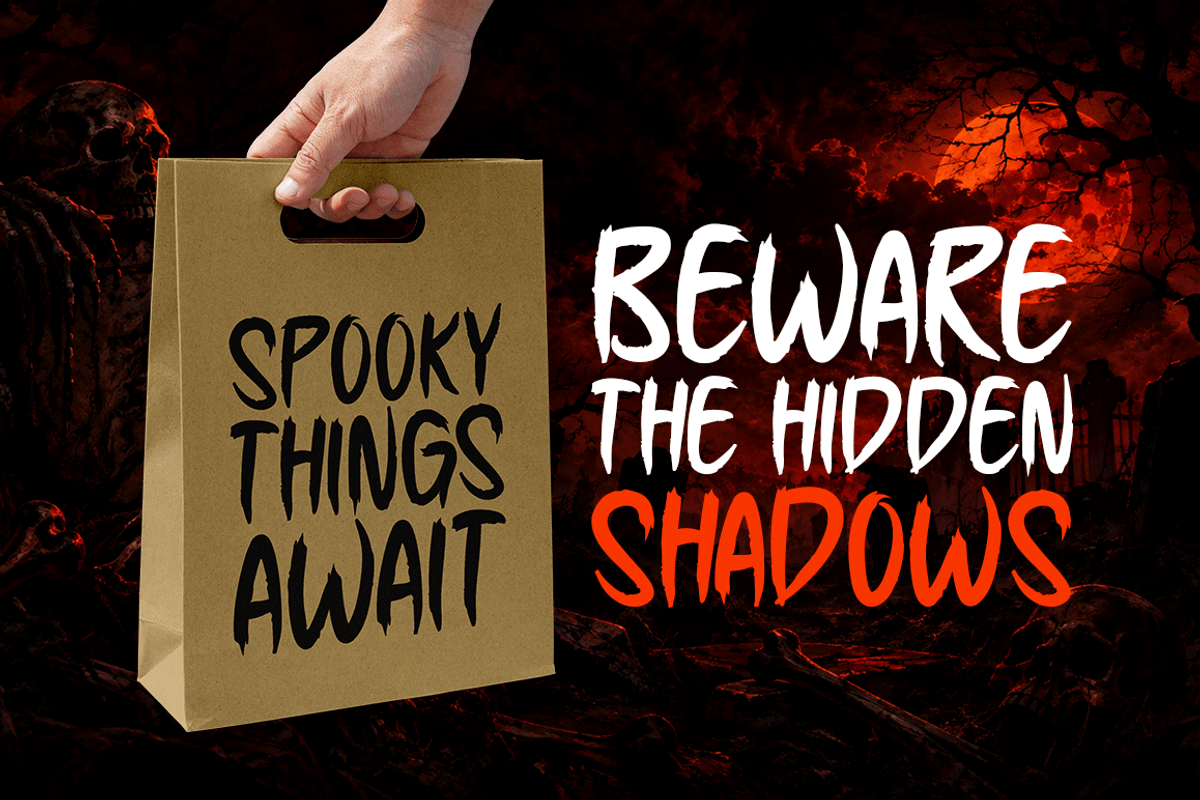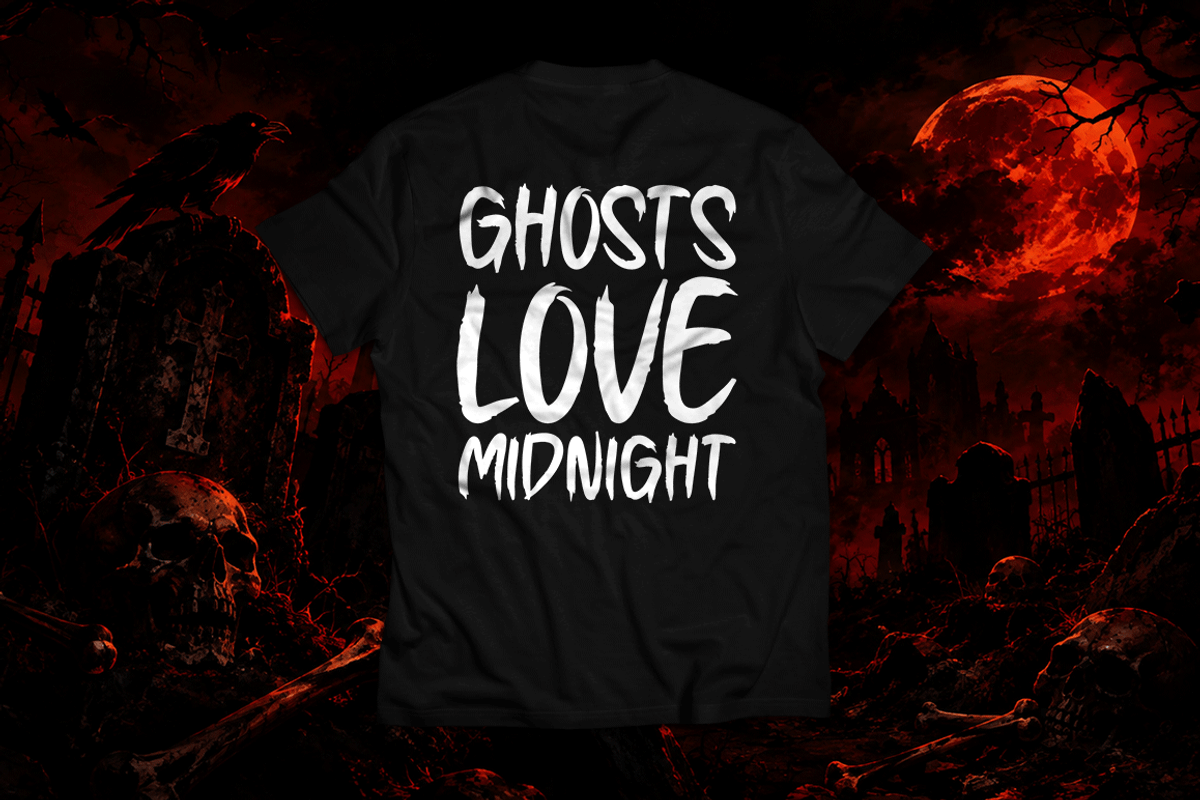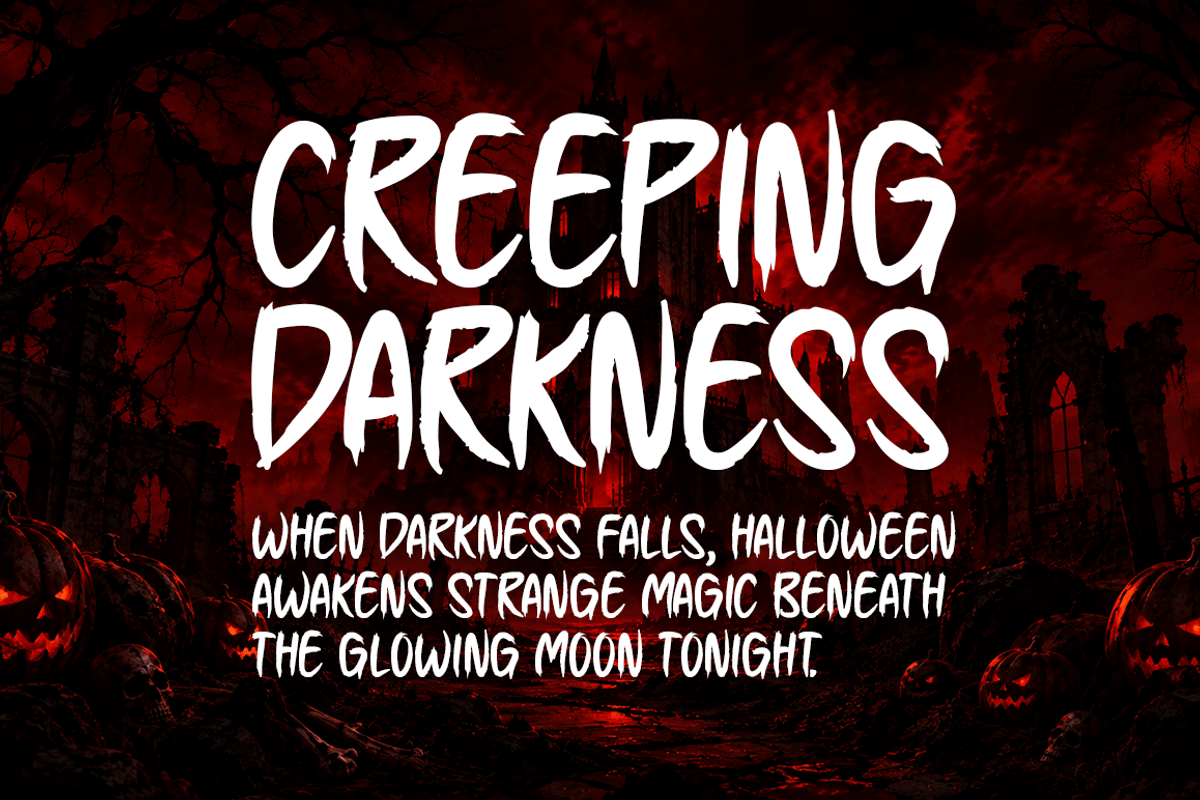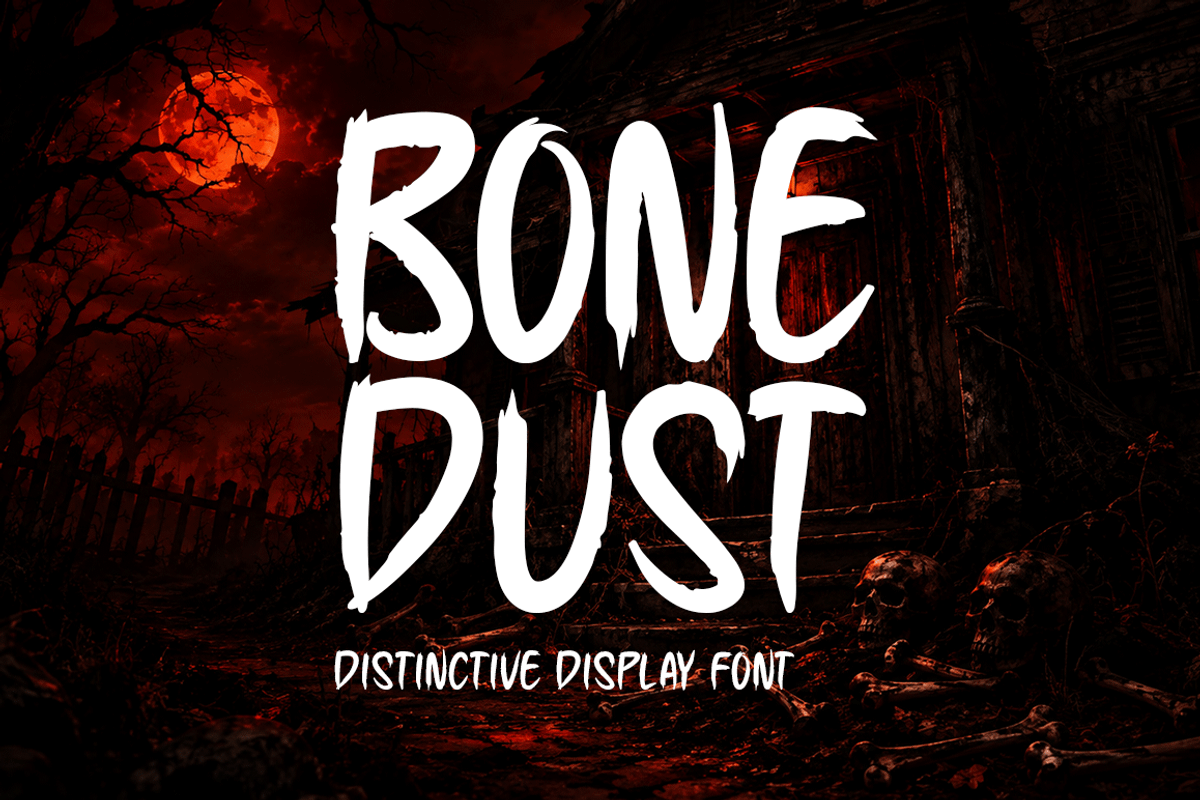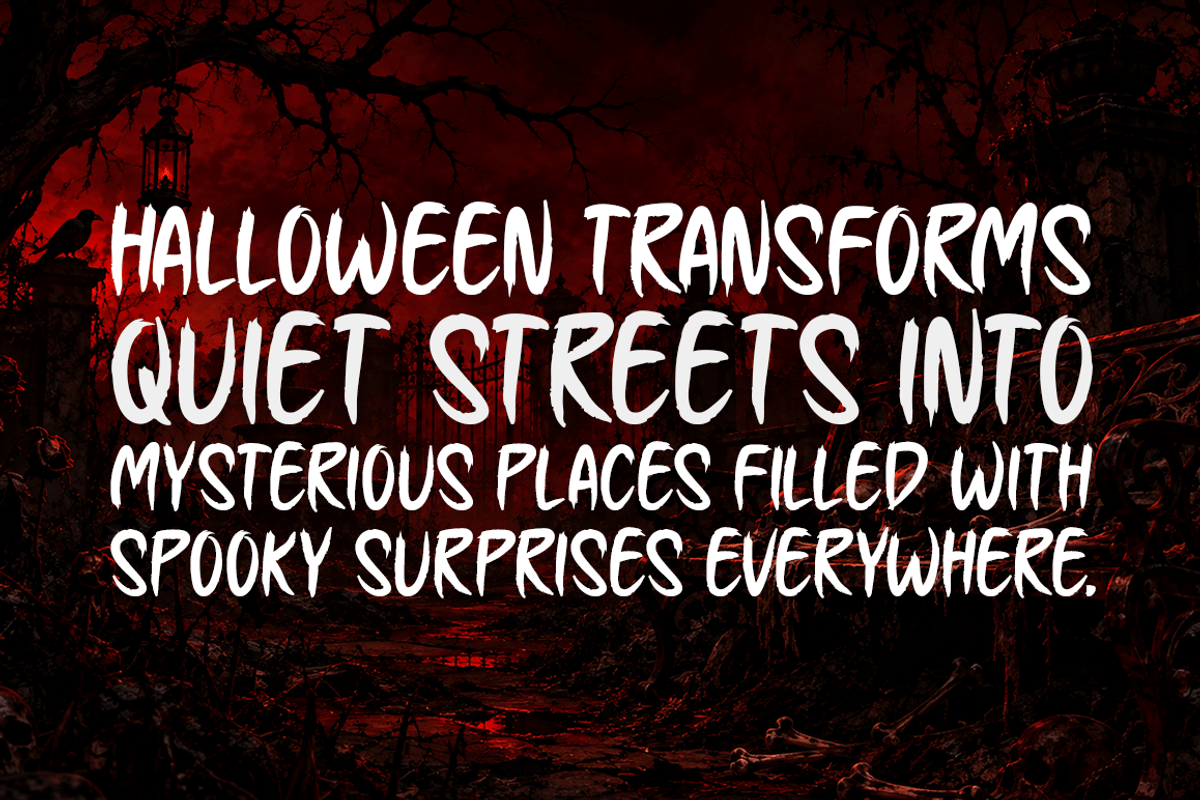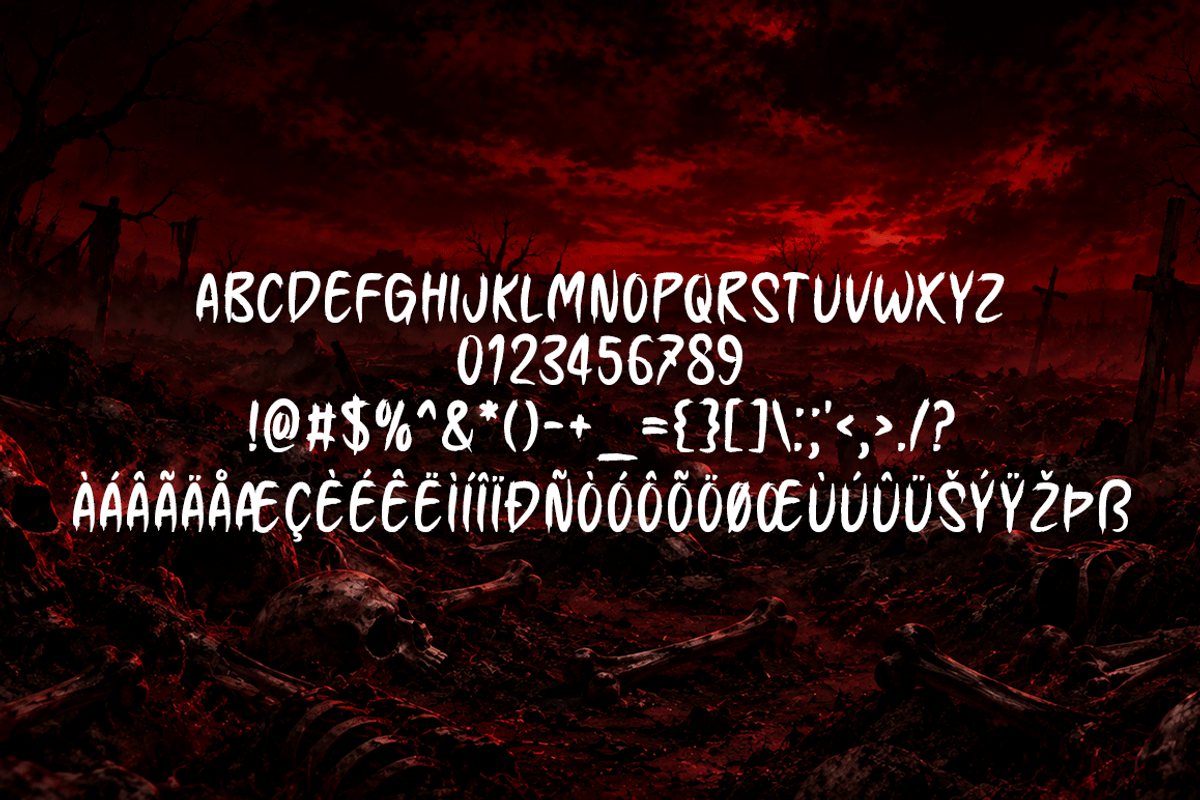
Bone Dust Typeface
Introducing Bone Dust!
Bone Dust is a haunting display font featuring rough, hand-drawn letterforms, sharp edges, uneven shapes, and eerie details. Its bold and unsettling appearance creates a dark, mysterious atmosphere that instantly grabs attention. Perfect for horror posters, haunted house graphics, creepy artwork, scary invitations, album covers, merchandise, social media designs, book covers, and dark branding projects. Bone Dust adds a raw, sinister personality to your typography while keeping every design visually striking and memorable.
Includes a range of multilingual support